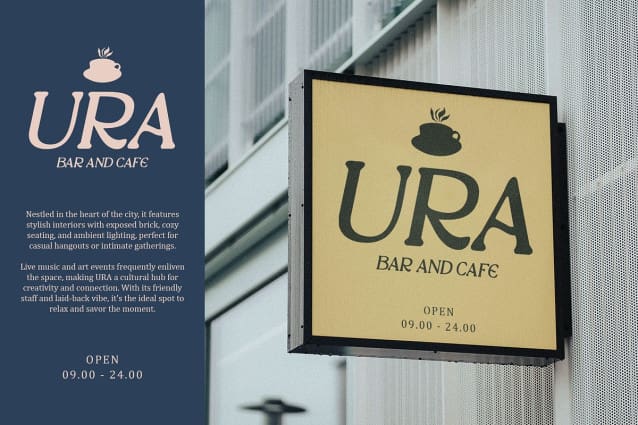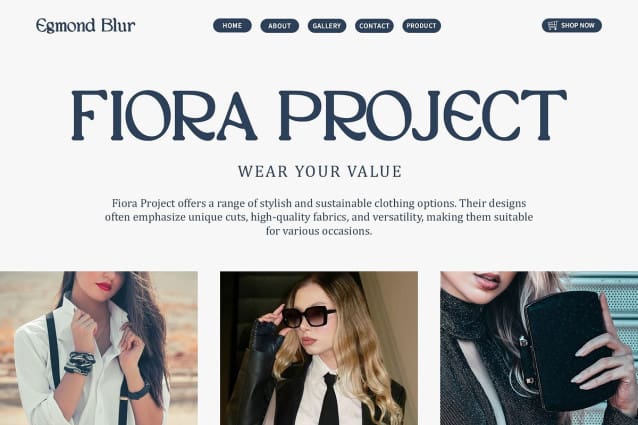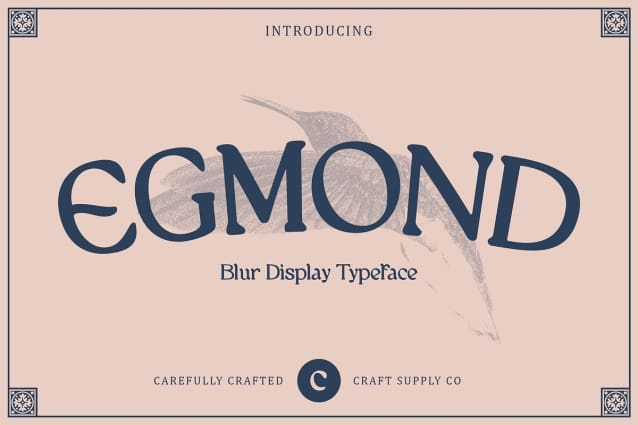
Egmond Blur Font
Egmond Blur Font is an old display serif font that masterfully blends classic sophistication with a modern twist. Featuring bold serif characteristics paired with a soft blur effect, this font creates a visually captivating and refined impression.
Combining the structured elegance of classic serif design with the subtle depth of a blur effect, Egmond Blur offers a unique fusion of nostalgia and modernity. The traditional serif elements provide a strong, sophisticated foundation, while the blur effect adds a touch of contemporary dimension.
Ideal for print materials such as luxurious invitations, editorial designs, and high-end branding, Egmond Blur enhances your projects with its elegant and distinctive style. Whether you’re aiming for a nostalgic feel or a fresh, stylish look, this font delivers both with grace and sophistication.
Choose Egmond Blur to elevate your designs with a display serif font that combines classic elegance and modern allure. This font ensures your projects make a memorable impression with a refined and captivating appearance, perfect for showcasing style and uniqueness.